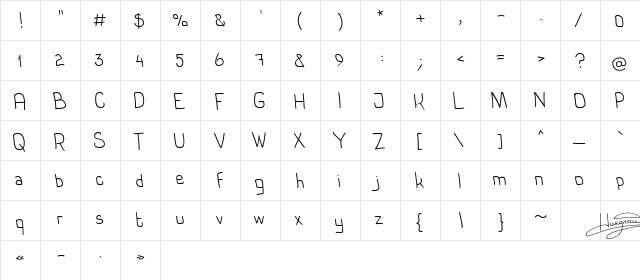
Kolegraphy Regular
Design Context for Kolegraphy Typeface
Kolegraphy takes a measured approach to typography — its balanced proportions and neutral character make it a reliable workhorse for both digital and print work.